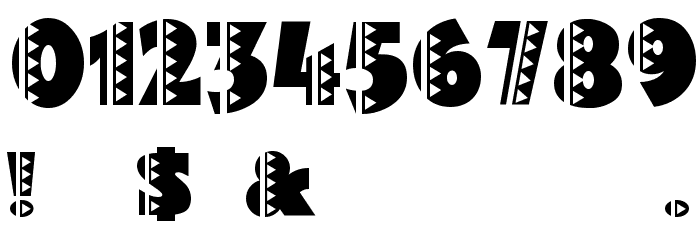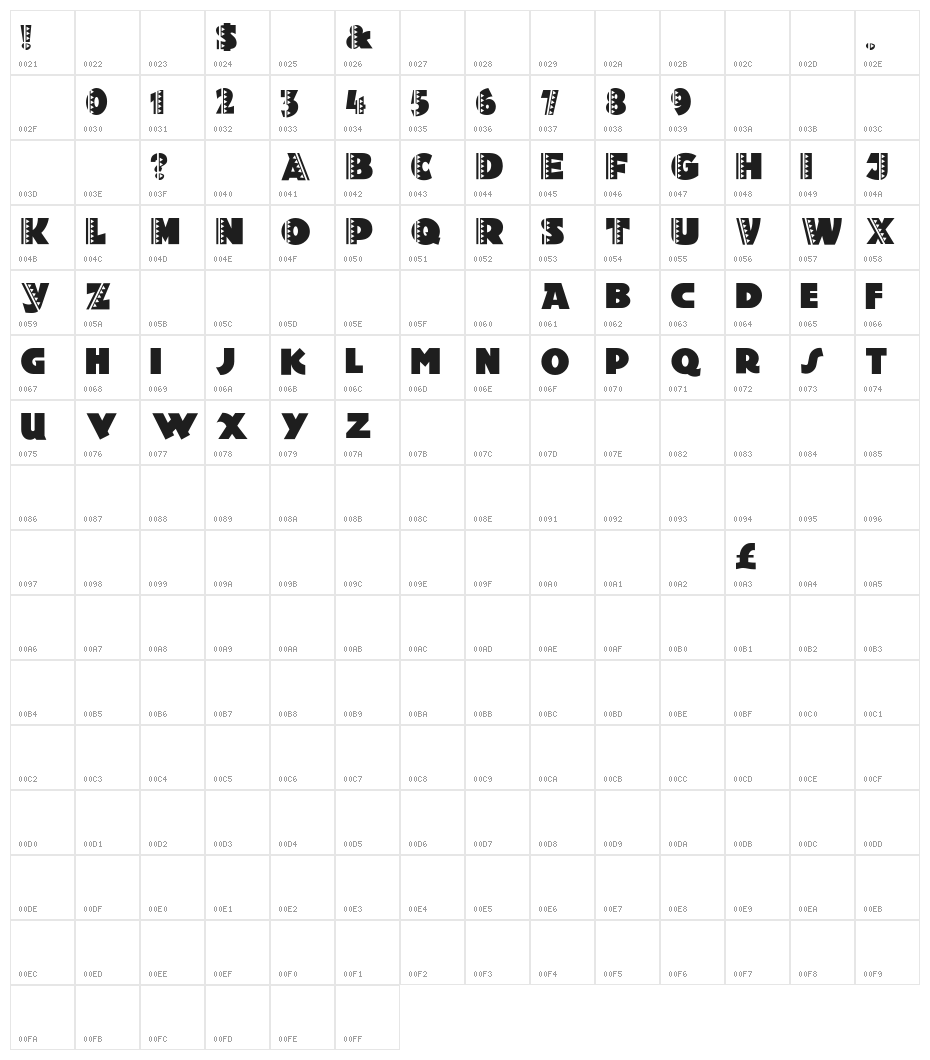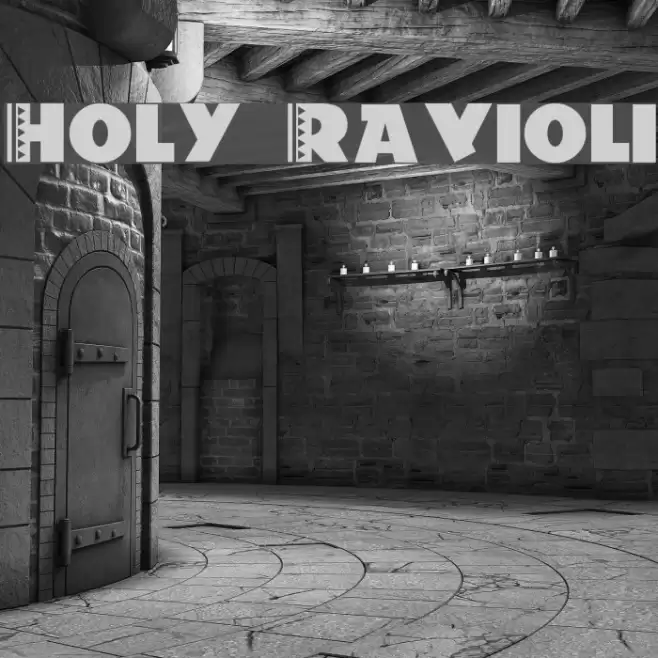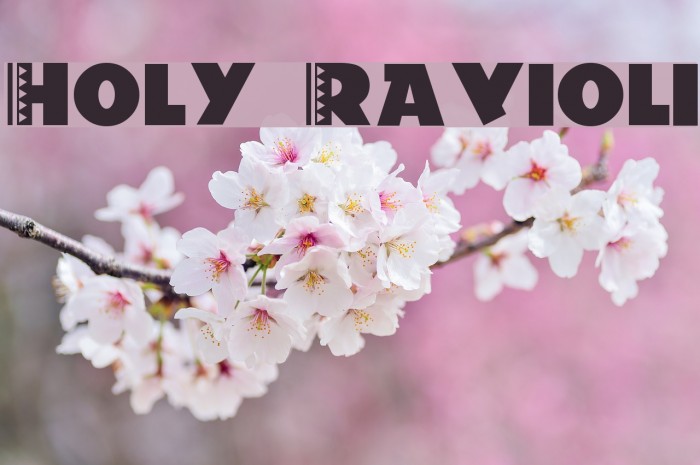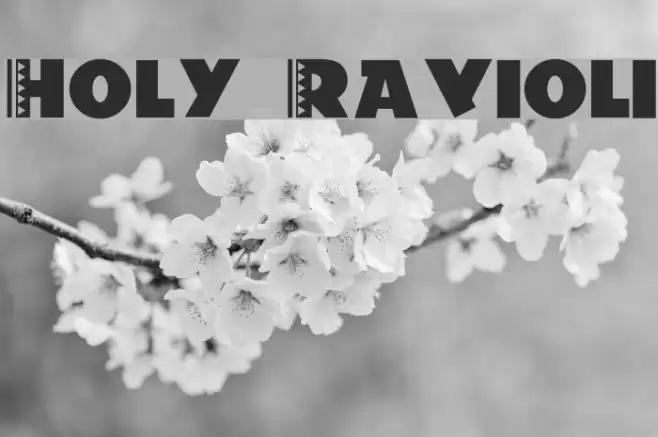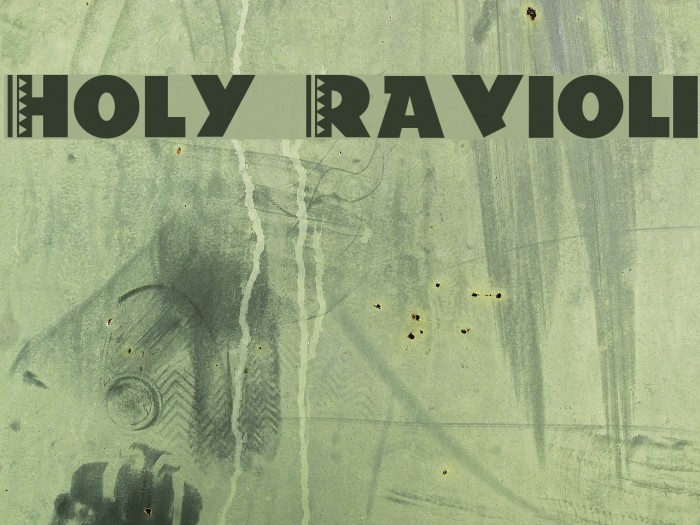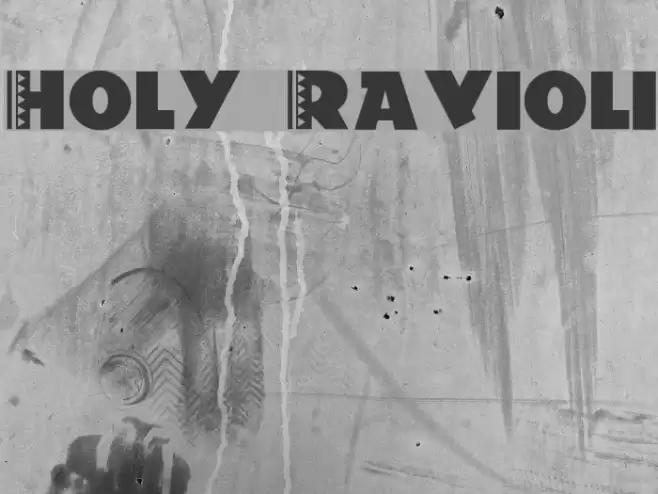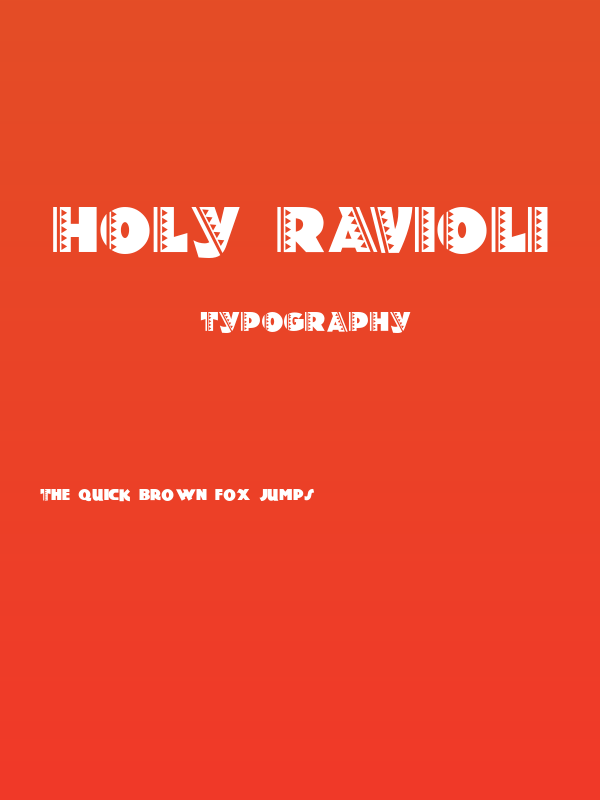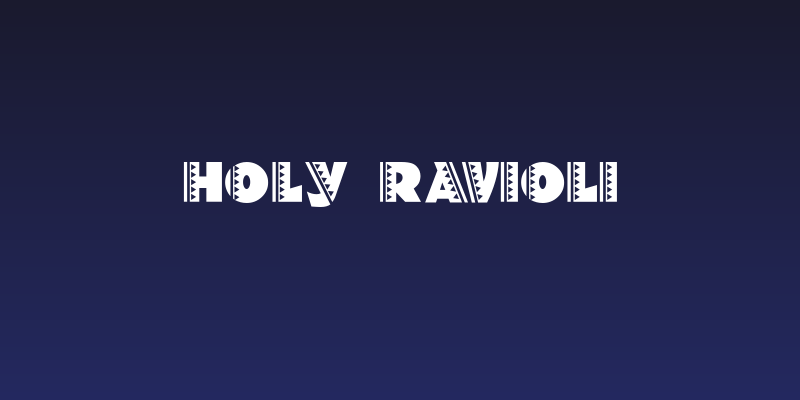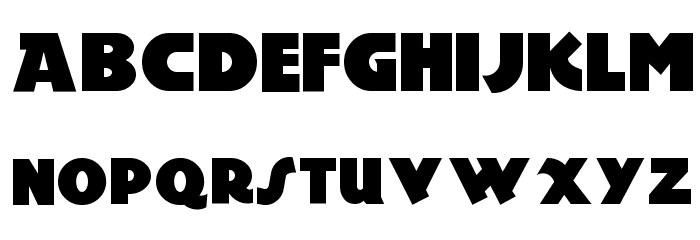
Holy-Ravioli Font
Holy-Ravioli Description
This font features a bold and decorative style with a unique tribal pattern integrated into each character. The uppercase letters are striking and eye-catching, with geometric shapes and intricate details that make them stand out. The lowercase letters maintain the boldness but with slightly less ornamentation, providing a balance between complexity and readability. The numbers and special characters continue the theme, ensuring consistency across all glyphs. This font is perfect for projects that require a strong visual impact and a touch of artistic flair.
Proposed ProjectsIdeal for branding, posters, album covers, and any design needing a bold, artistic touch.